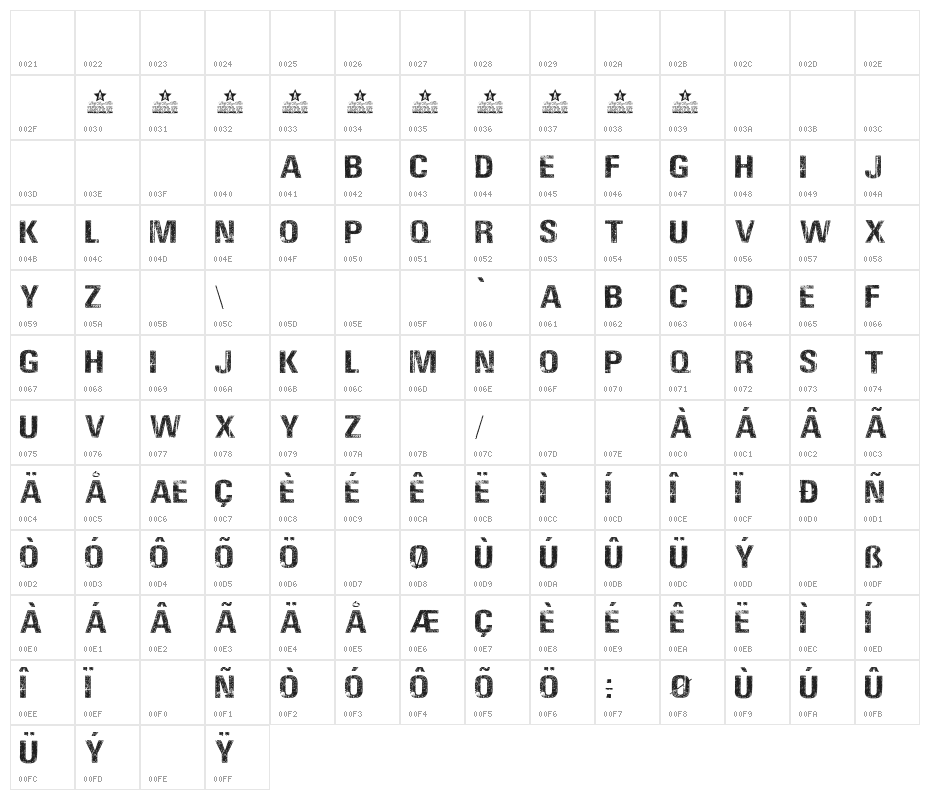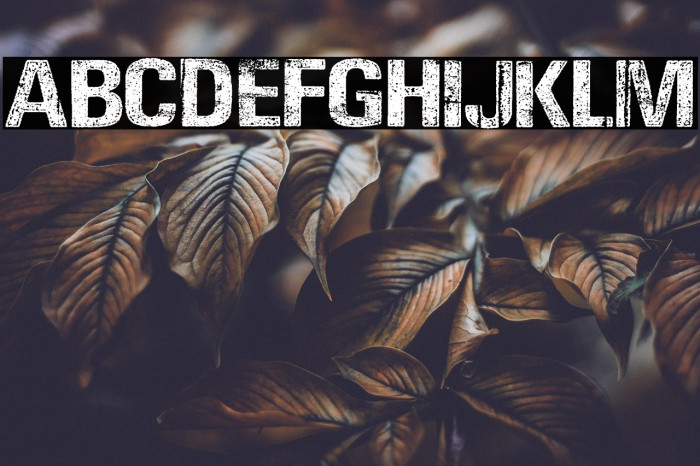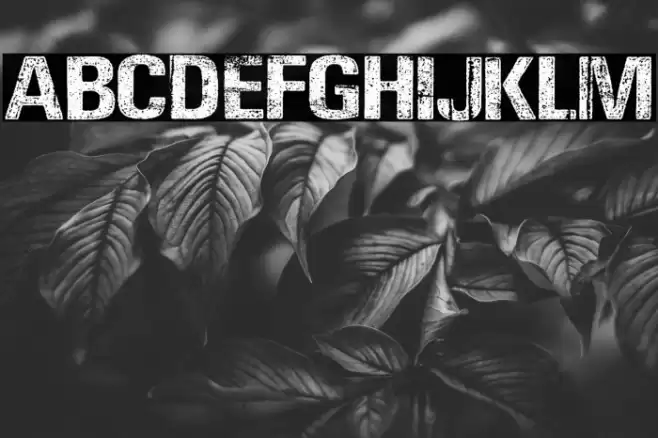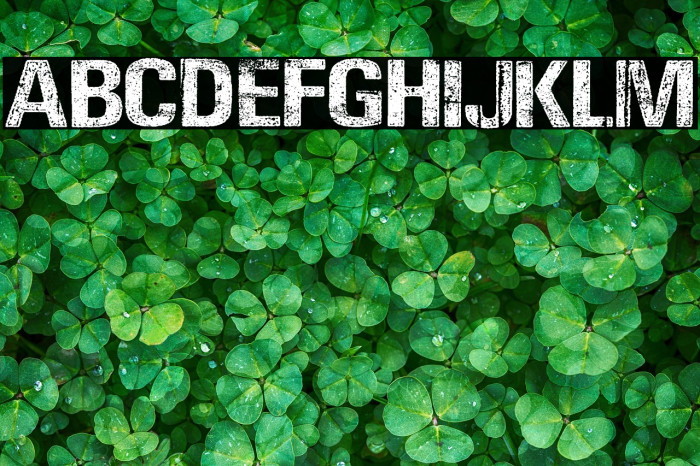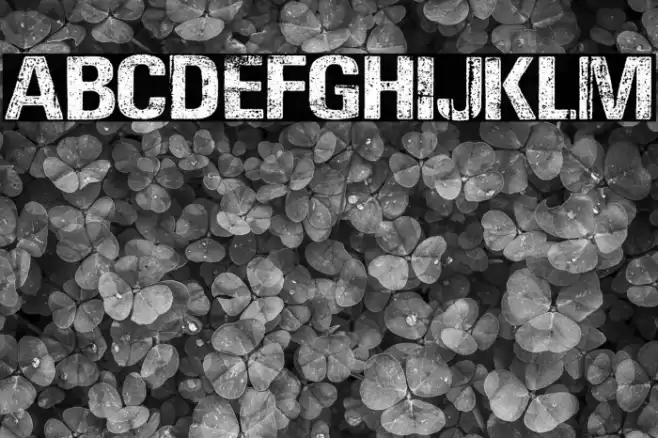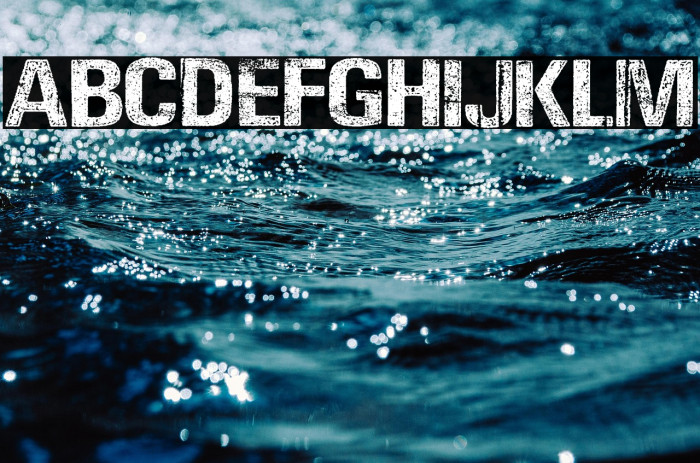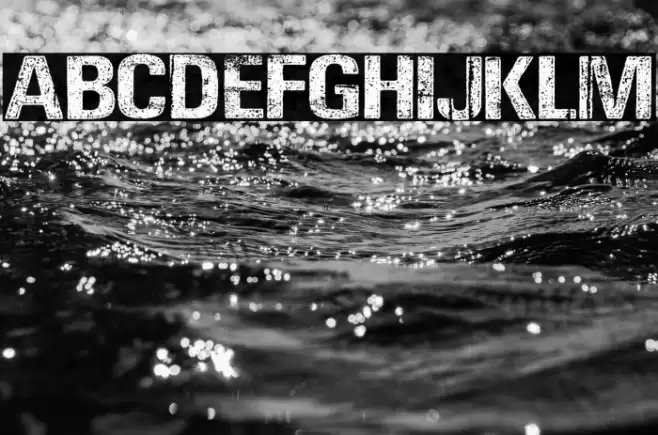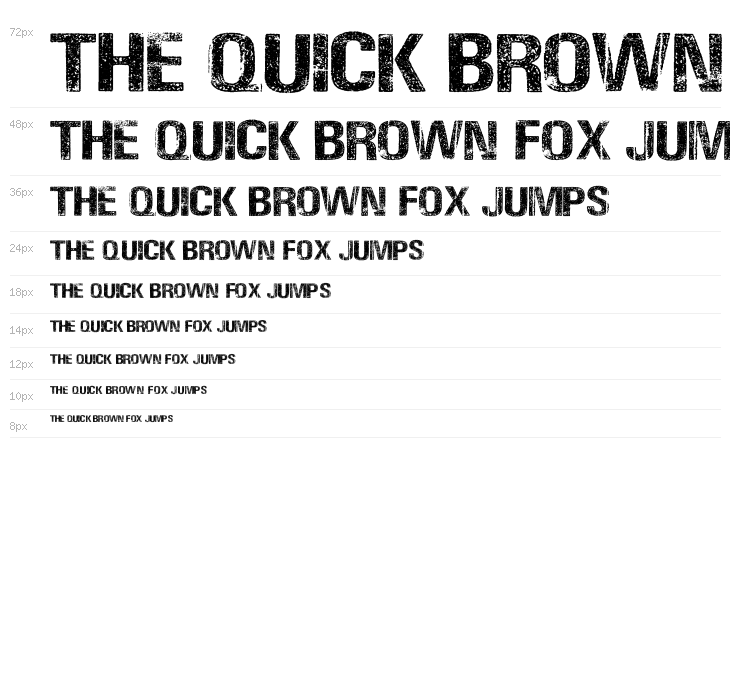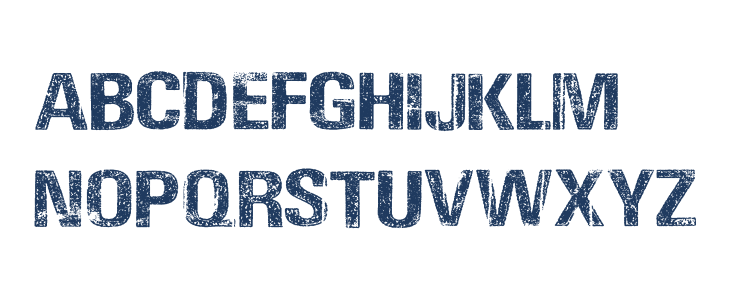
CREATURE Font
CREATURE Description
This font features a bold, distressed style with a textured appearance that gives it a rugged and vintage feel. The uppercase letters are prominent and impactful, making it ideal for attention-grabbing designs. The texture within each letter adds a unique character, reminiscent of worn-out or weathered surfaces. This style is particularly effective in conveying a sense of history or nostalgia, making it suitable for projects that require a touch of authenticity or a retro vibe. The font's boldness ensures it stands out, while the distressed effect adds depth and interest.
| Proposed Projects | Ideal for vintage posters, retro-themed branding, album covers, and apparel design. |